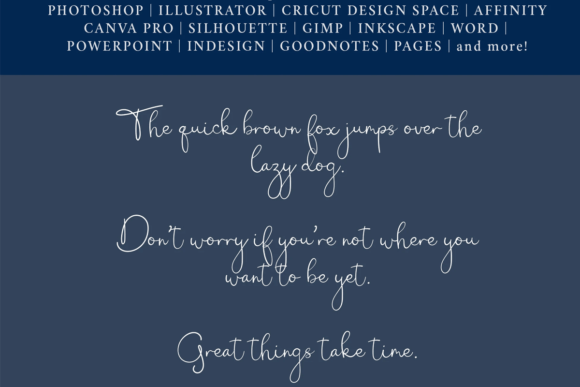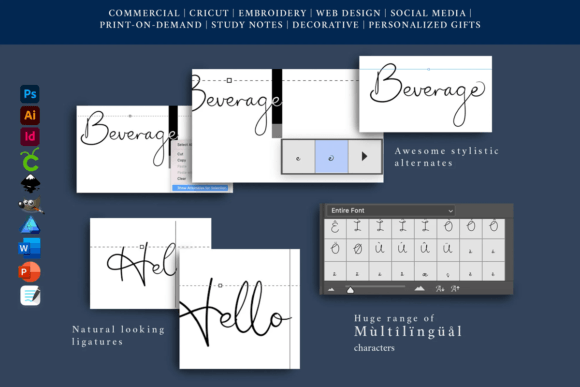
Introduction to Hannah Callaghn Font
“Hannah Callaghn’s Elegant Script” is a beautiful style of writing characterized by graceful, flowing letters that create a sense of sophistication and charm.
Each stroke is carefully crafted to exude elegance, making it perfect for special occasions like weddings or formal invitations .
Key Features of Hannah Callaghn Font